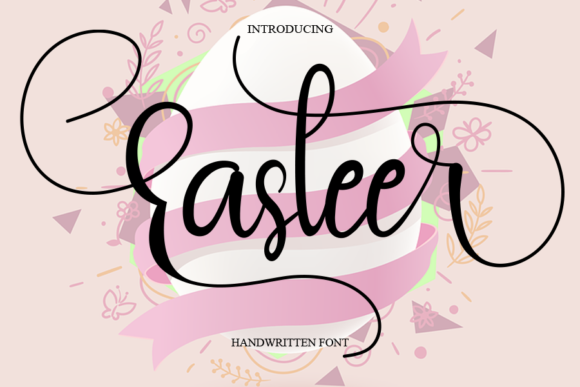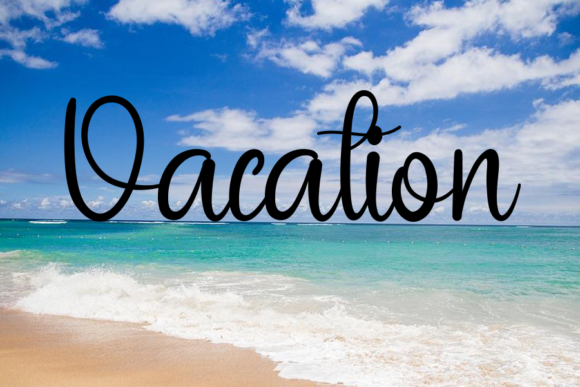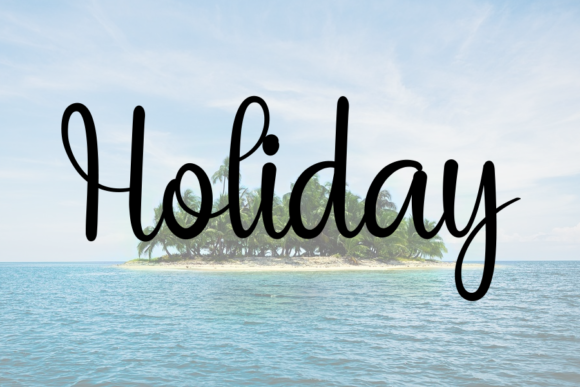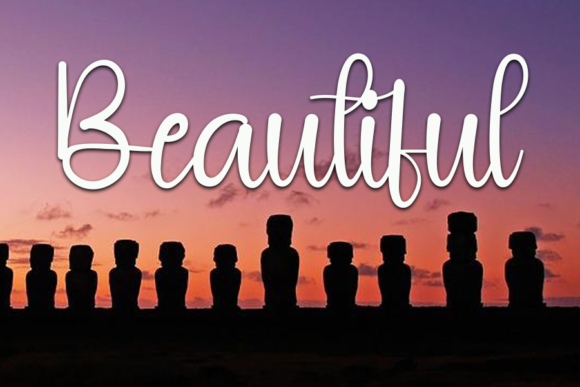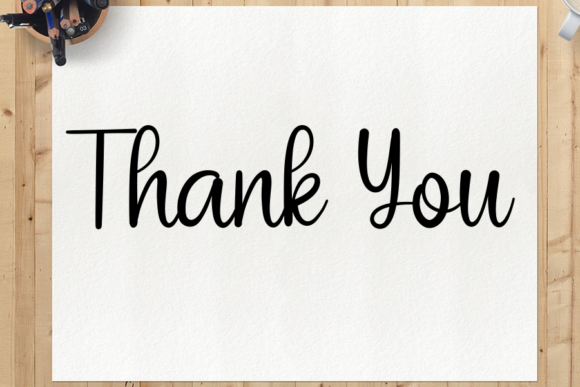
Easter Font
About Easter Font
Choosing the right font for a creative project is a crucial decision that can greatly influence the overall aesthetic and impact of your design. In the realm of script fonts, a font named “Easter” appears to be a delightful choice, characterized by its sweet, romantic, and beautiful design, accentuated by chic curves in each letter. This typeface, coupled with PUA coding, offers a unique and versatile tool for designers to infuse their projects with elegance and charm.
The sweet and romantic nature of the “Easter” font makes it particularly suitable for projects that require a touch of sophistication and a hint of romance. The beautiful curves in each letter contribute to the overall visual appeal, creating a flowing and graceful script that adds a layer of delicacy and refinement to the text.
One of the standout features of the “Easter” font is its PUA coding. This coding system, short for Private Use Area, enables easy access to all the glyphs and swashes available in the font. Designers can leverage this feature to customize and personalize their projects seamlessly, ensuring a tailored and unique look. Whether you’re working on wedding invitations, romantic quotes, or any creative endeavor that demands a distinct and expressive script, the PUA coding in “Easter” proves to be a valuable asset.
Versatility is a key strength of the “Easter” font. Beyond its romantic undertones, it adapts well to various design contexts, from branding projects to social media graphics. The font’s ability to maintain readability while exuding a romantic and beautiful aesthetic makes it adaptable to diverse applications.
In the hands of a designer, “Easter” becomes a tool for visual storytelling. Its sweet and romantic nature has the power to evoke emotions, making it an ideal choice for conveying love, joy, or any sentiment that aligns with a graceful script. The chic curves in each letter create a harmonious flow, ensuring that the font not only looks beautiful but also reads well.
In conclusion, “Easter” emerges as more than just a script font; it is a visual storyteller. Its sweet, romantic, and beautiful design, complemented by PUA coding, positions it as a versatile and powerful asset for designers seeking to elevate their projects with elegance and charm. Whether employed in wedding materials, quotes, or various creative applications, “Easter” adds a distinctive and refined touch that enhances the overall visual experience.